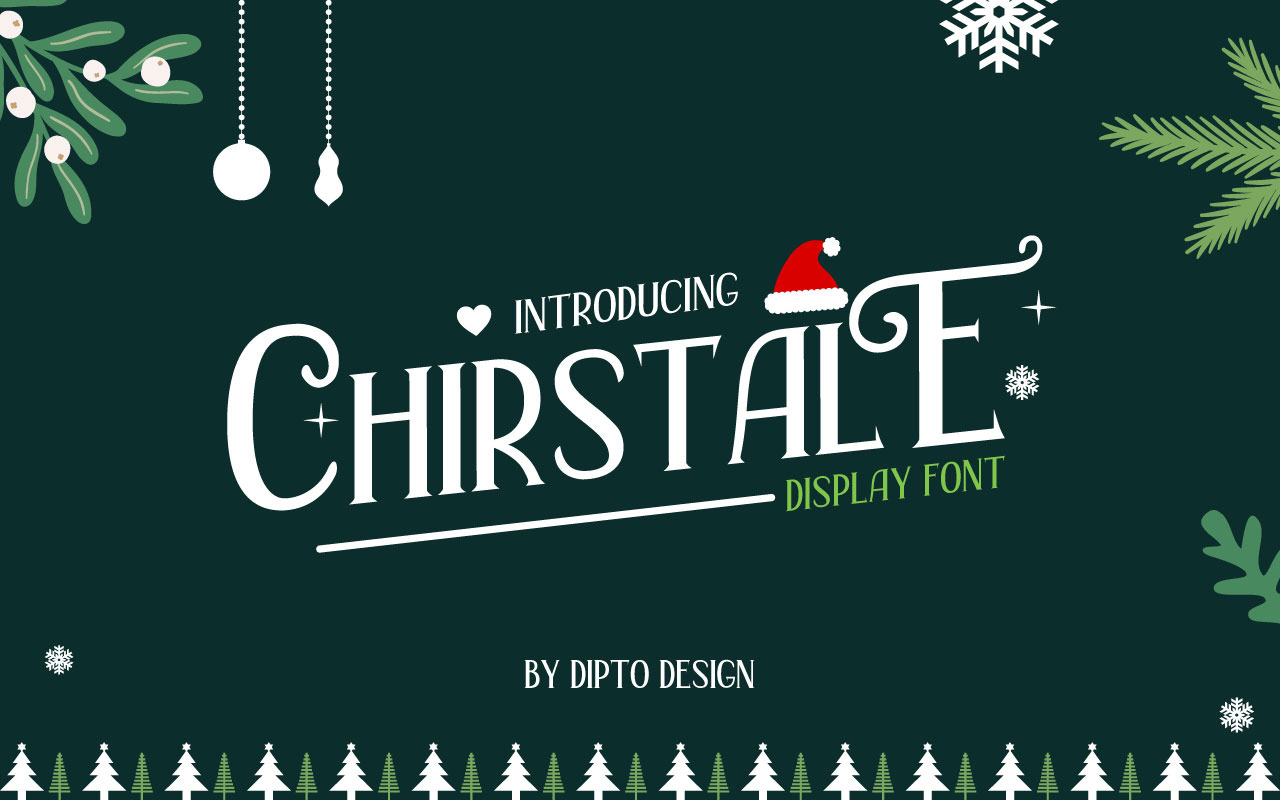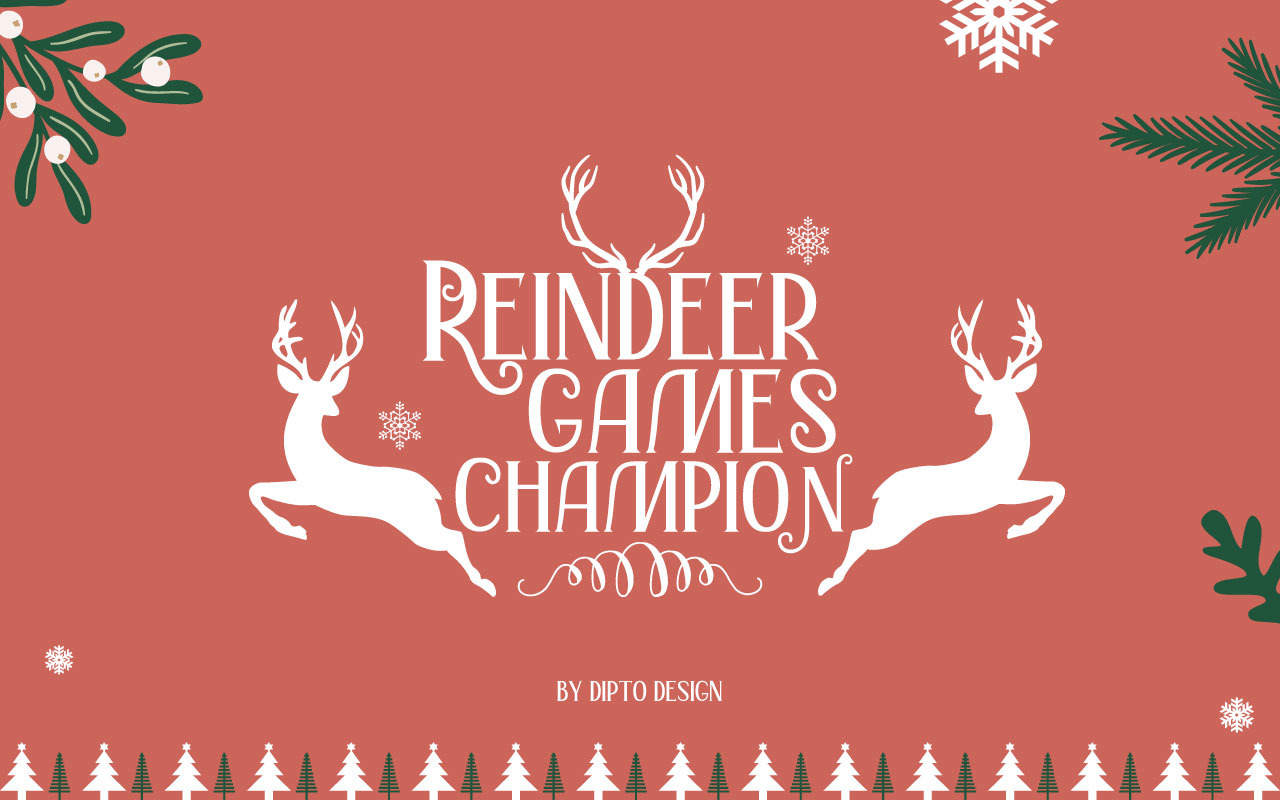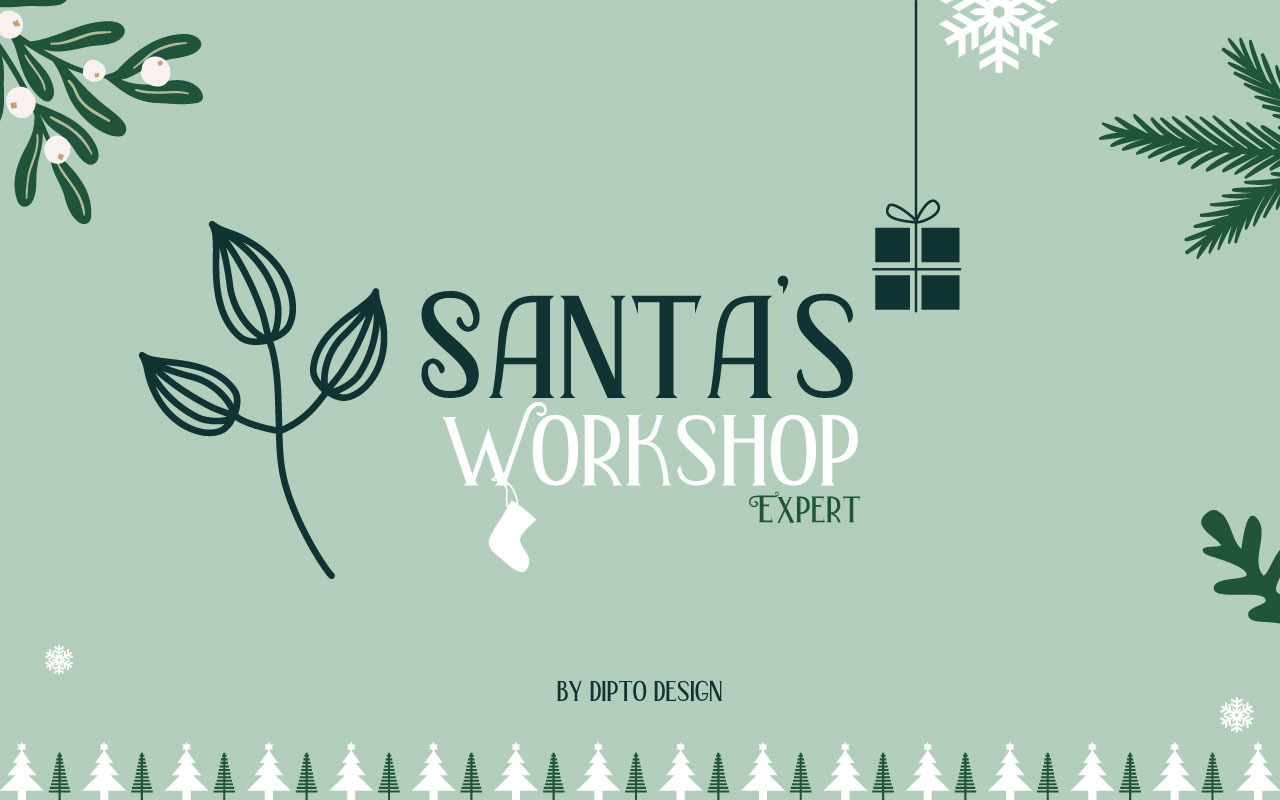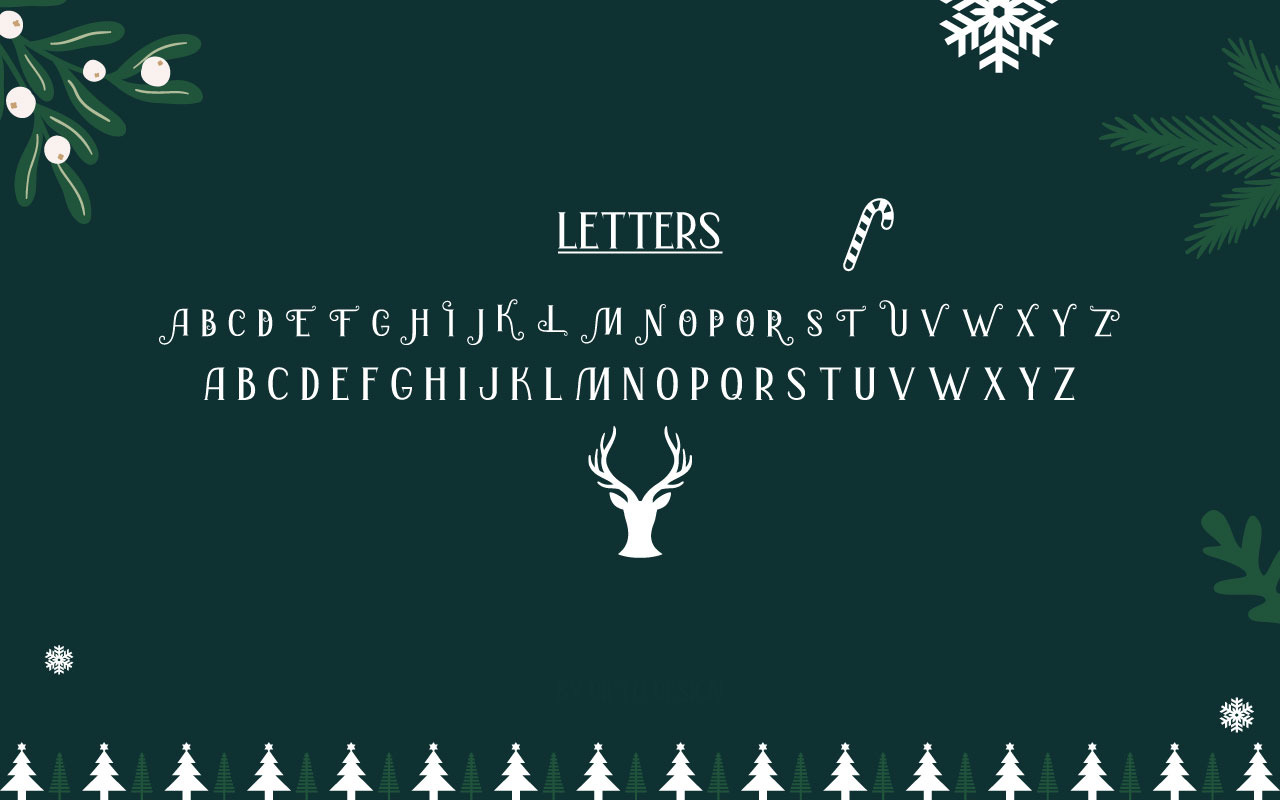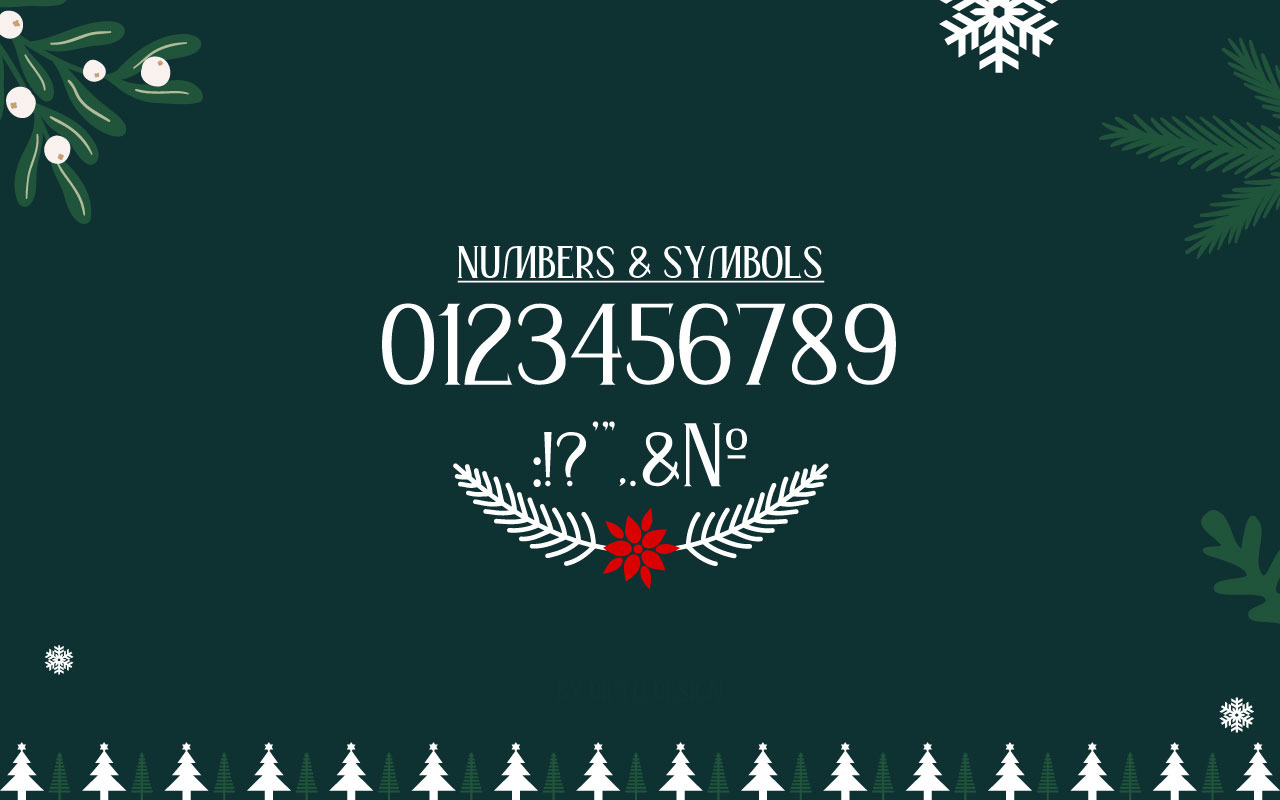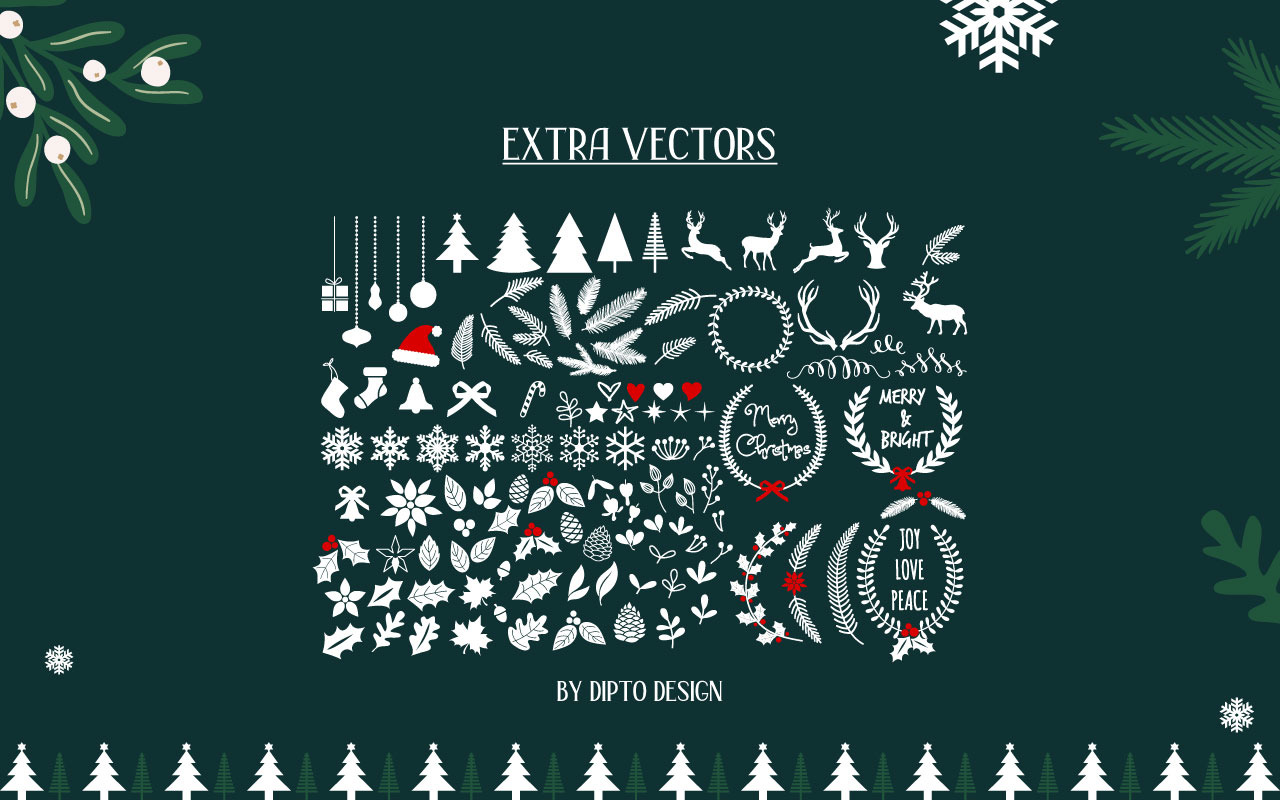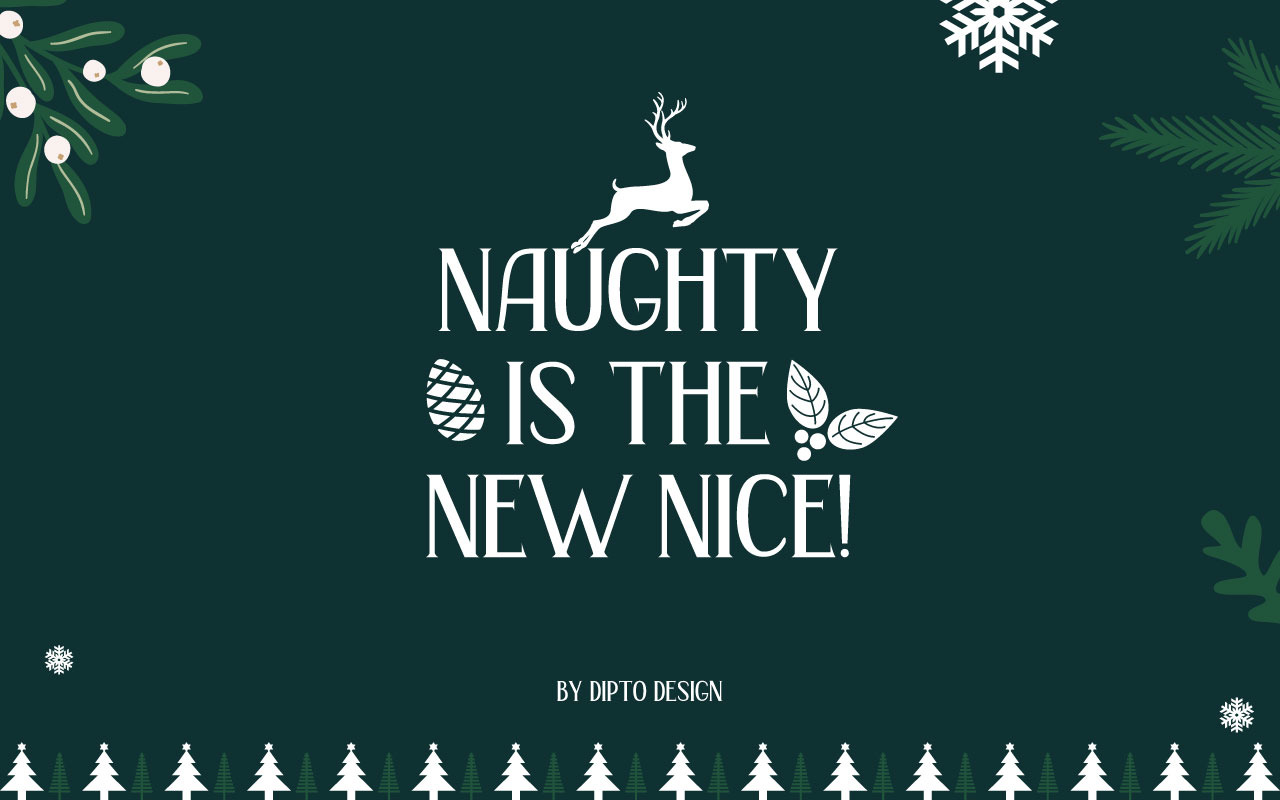
Christale - Christmas Typeface
Discover 'Christale,' where the essence of Christmas comes to life in every letter. With its festive charm, this font is tailor-made for holiday projects, adding a touch of Yuletide magic to your designs. Illuminate your season's greetings with 'Christale' and let the festivities begin.
- Festive Charm
- Versatile Usage
- Detailed Design
- Distinctive Elegance
- Easy Readability